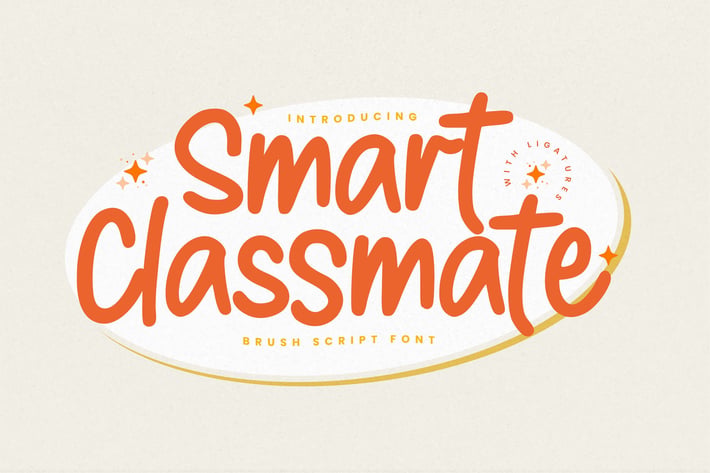
Smart Classmate - Brush Script Font
Hello Everyone, introduce our new product Font Smart Classmate This Is Brush Script Font. This is a Textured Natural Style and natural brush style.
This font Smart Classmate is great for your next creative project such as logos, printed quotes, invitations, cards, product packaging, headers, Logotype, Letterhead, Poster, Design this font is great for your creative projects such as watermark on photography, and perfect for logos & branding, invitation,advertisements,product designs, stationery, wedding designs,label ,product packaging, special events or anything that need handwritting taste.
That is has charming, authentic and relaxed characteristic more natural look to your text.